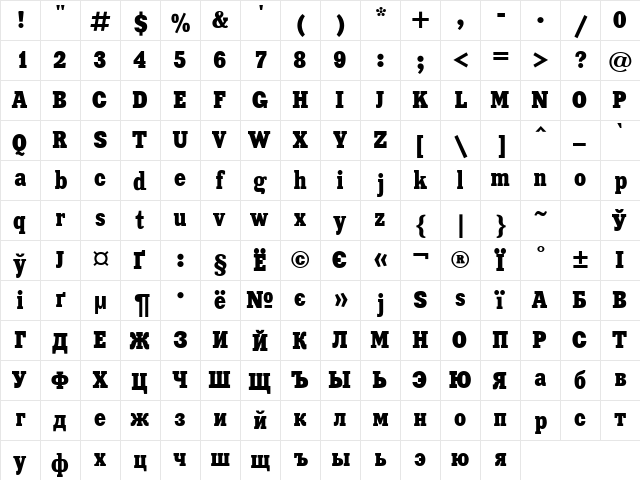
XeniaCondensedC Regular
Design Context for XeniaCondensedC Typeface
XeniaCondensedC takes a measured approach to typography — its balanced proportions and neutral character make it a reliable workhorse for both digital and print work. Its narrow stance lets it pack a punch even in space-constrained designs.